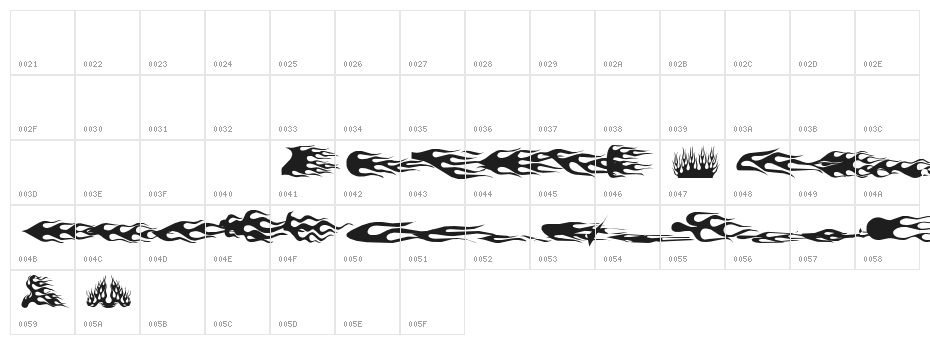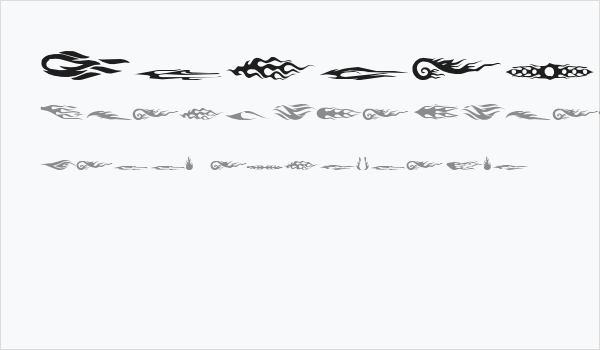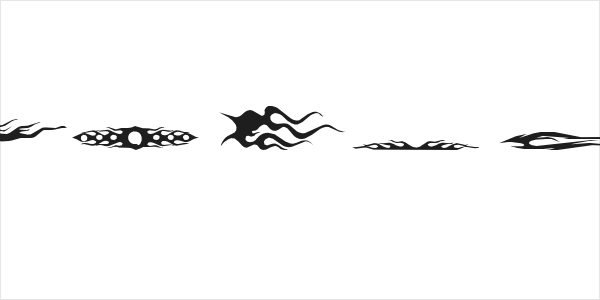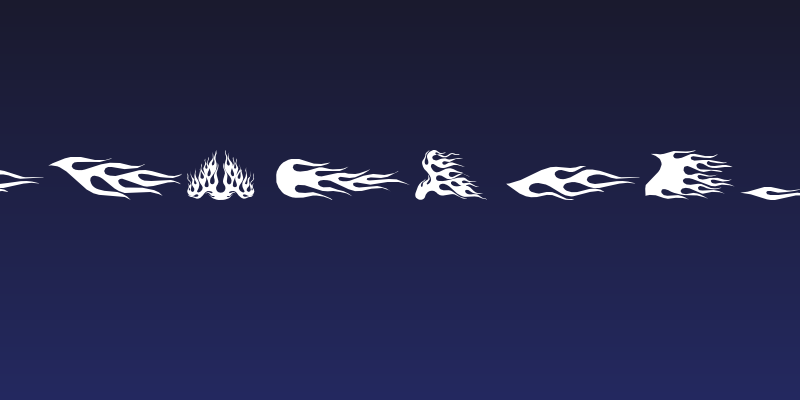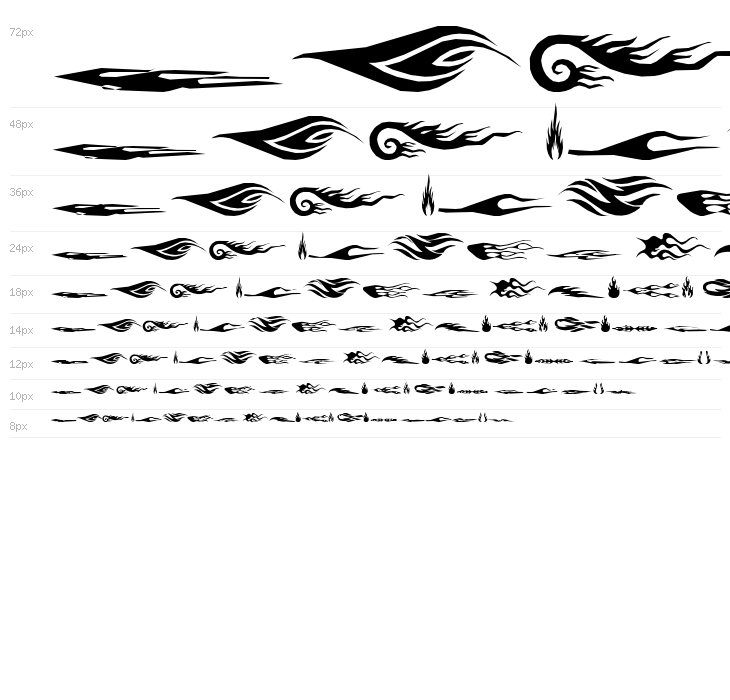
flamez by marioz Font
flamez by marioz Description
This font features a dynamic and energetic design, with each character resembling stylized flames. The intricate details and flowing lines create a sense of movement and intensity, making it ideal for projects that require a bold and fiery aesthetic. The characters are highly decorative, with varying thicknesses that add depth and dimension. This font is perfect for creating eye-catching headlines, logos, or any design that aims to convey energy and excitement.
| Proposed Projects | Ideal for logos, posters, album covers, and any design requiring a bold, energetic look. |